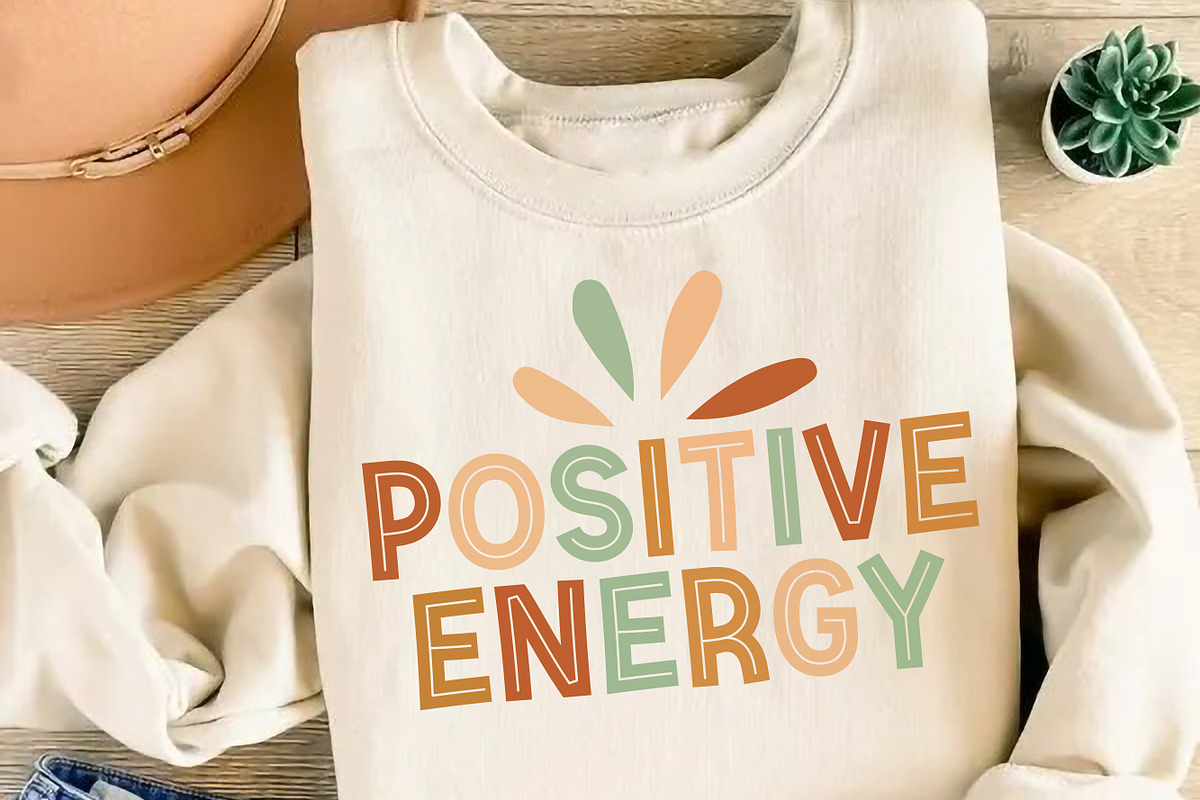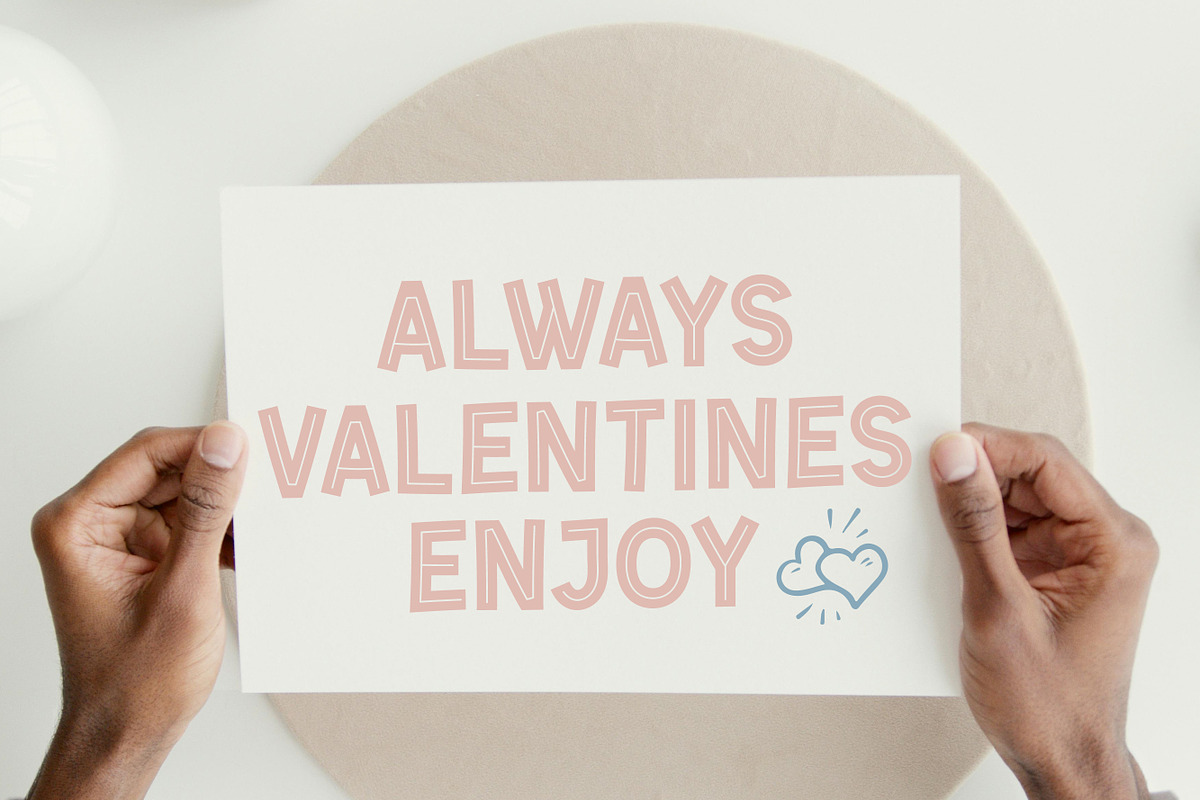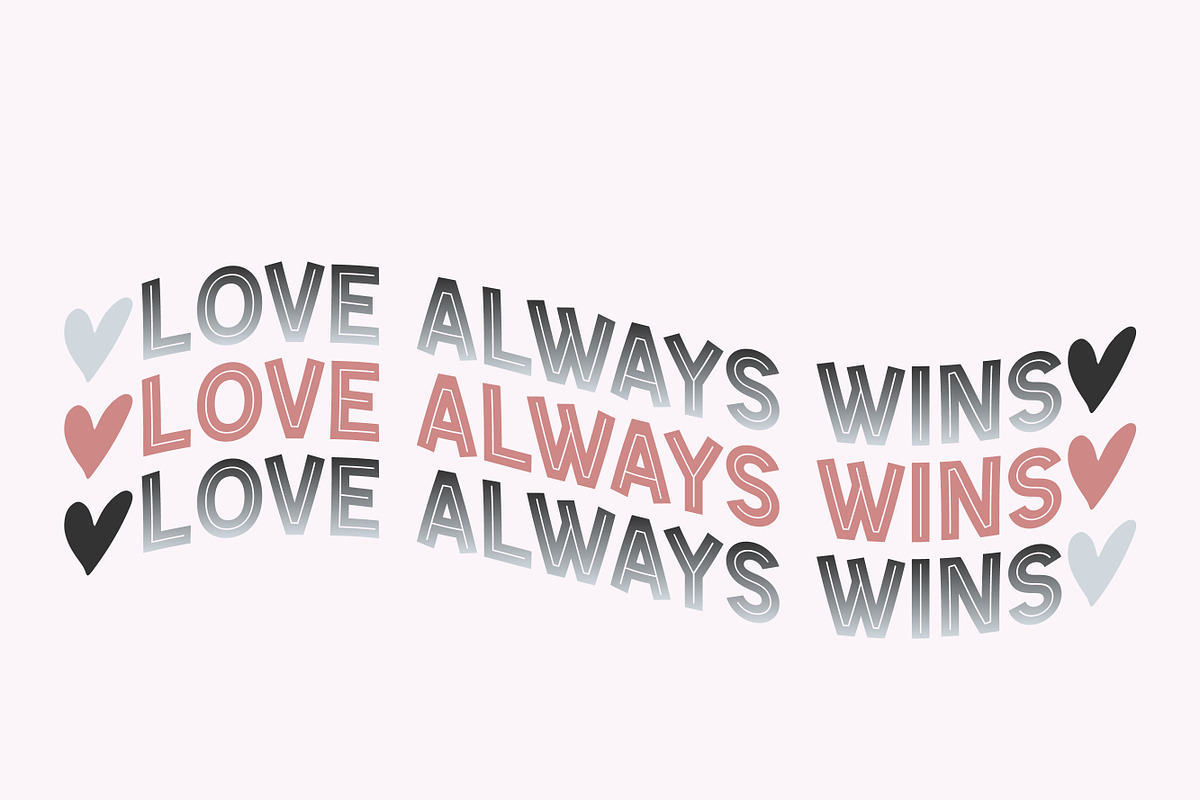
Creative Hearts Playful Handwritten
Creative Hearts Sans Handwritten Font is a charming typeface. With its clean, sans lines blended with subtle handwritten elements, perfect balance between elegance and warmth. Its playful yet sophisticated style makes it suitable for both casual and formal designs. Ideal for creating heartfelt cards, romantic invitations, or social media posts and more.